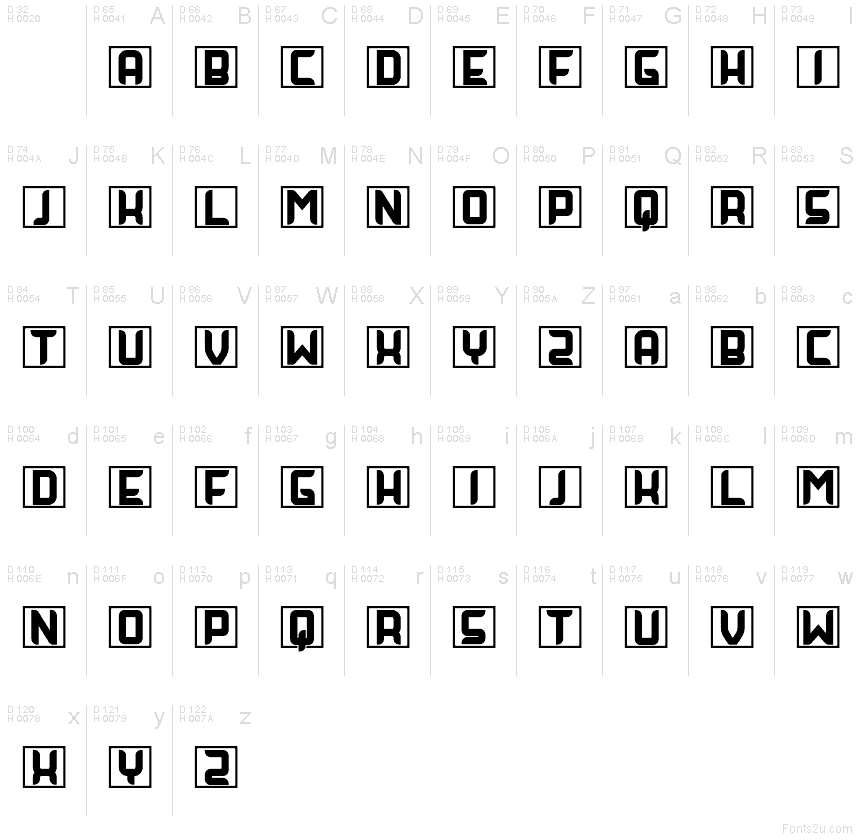
Floralogy Capitals Book Regular
Floralogy Capitals Book font by Vladimir Nikolic is a free decorative display typeface that turns every letter into a tiny framed tile. Each capital sits inside a slim, square outline, giving your text a neat, grid-like rhythm that feels both retro and delightfully ornamental. The crisp, black strokes and consistent boxes make words lock together like a patterned border, so even a short title reads like a custom logo or emblem.
Using Floralogy Capitals Book, headlines instantly stand out on posters, packaging, book covers, event invitations, boutique branding, and social media graphics. This free font works best at larger sizes, where the boxy frames and intricate corners can really show. Pair it with a clean geometric sans for body copy to balance its decorative punch while keeping the overall design sharp and readable.